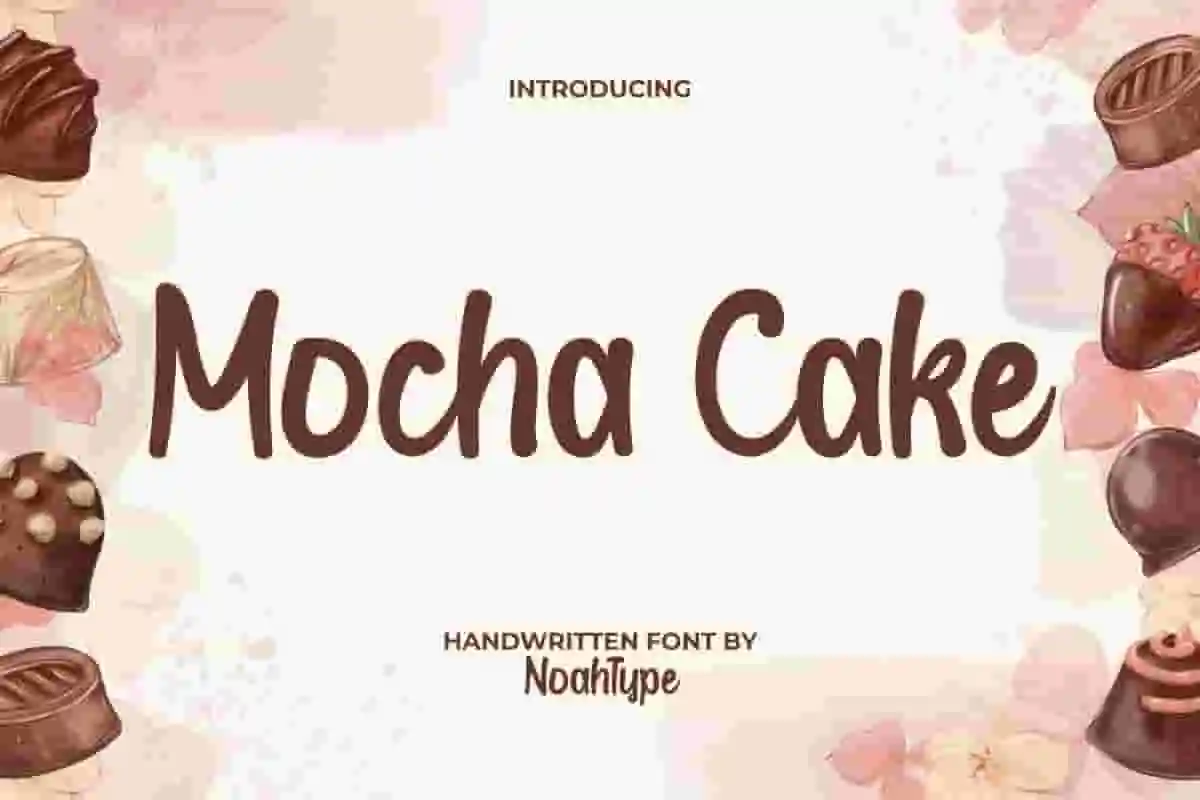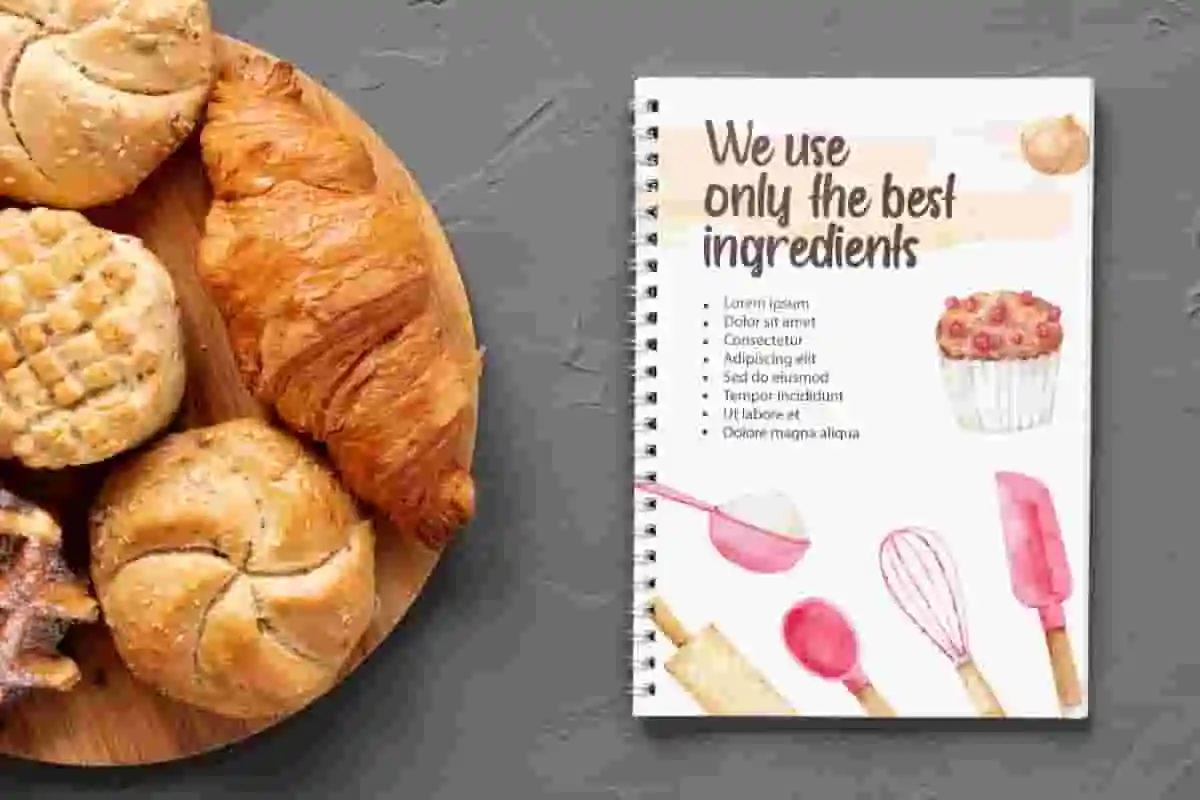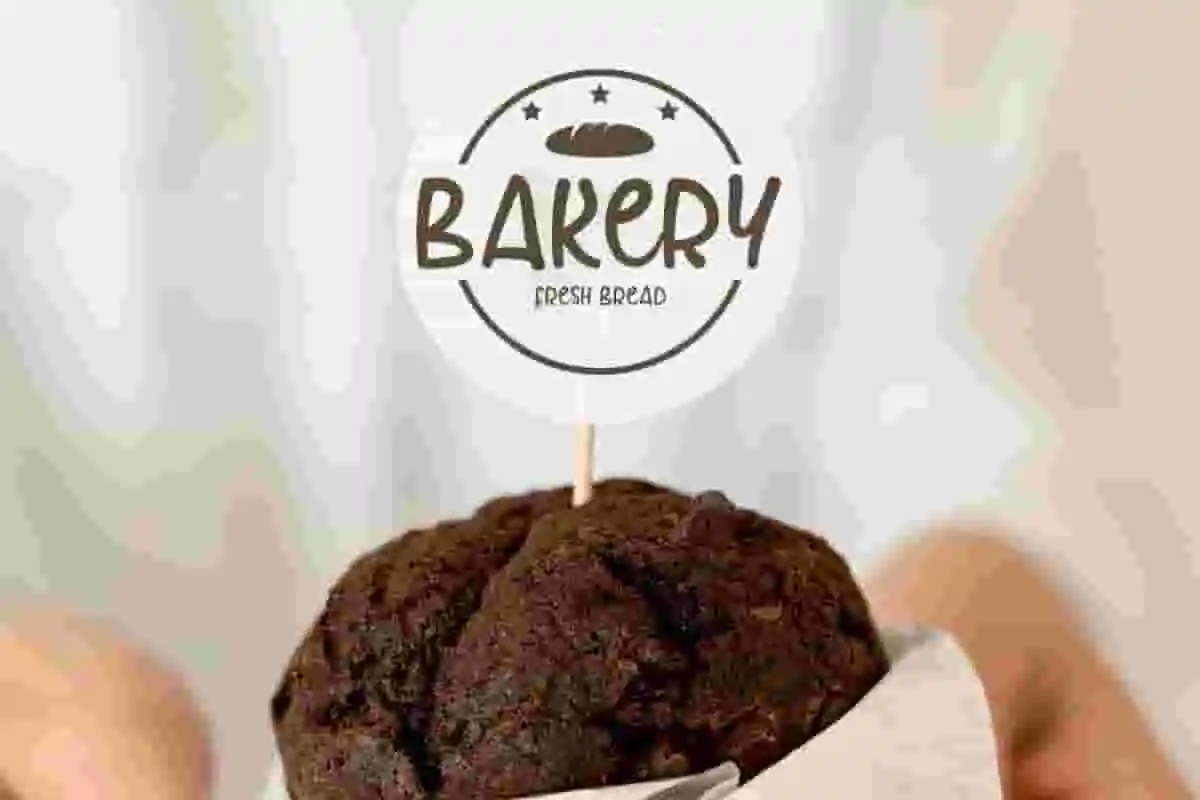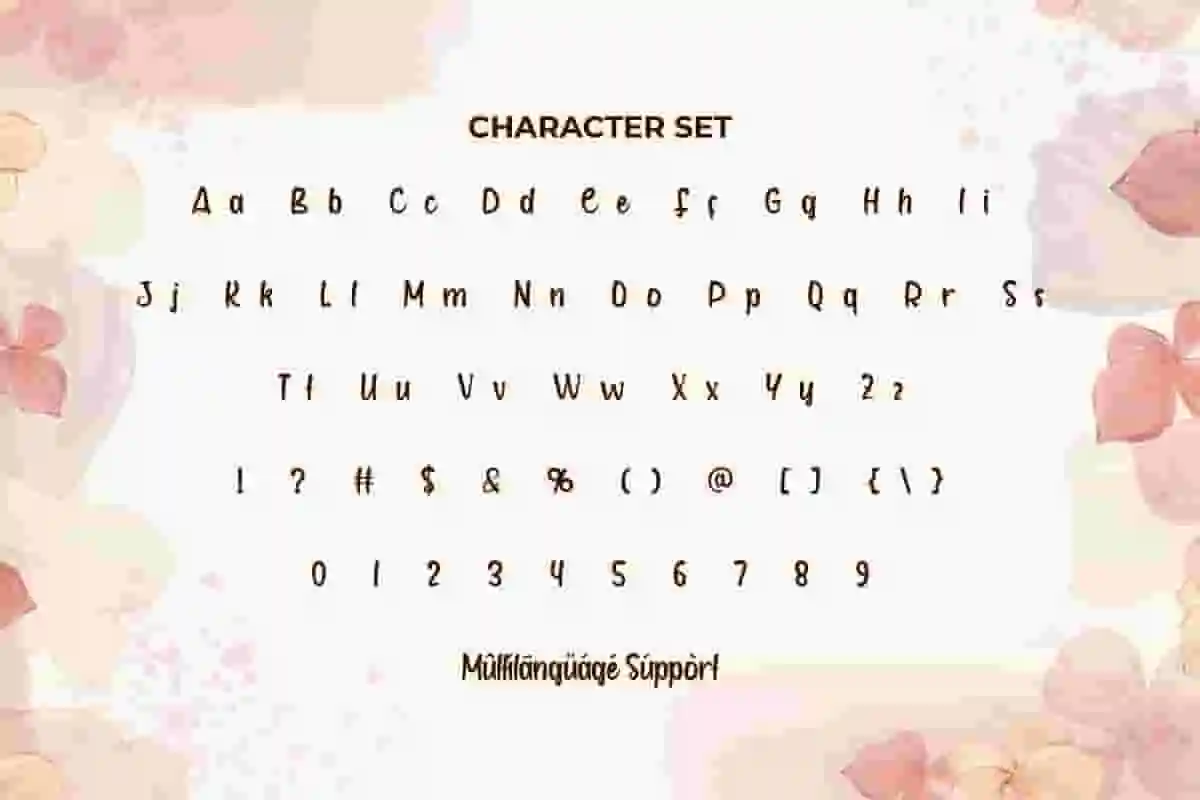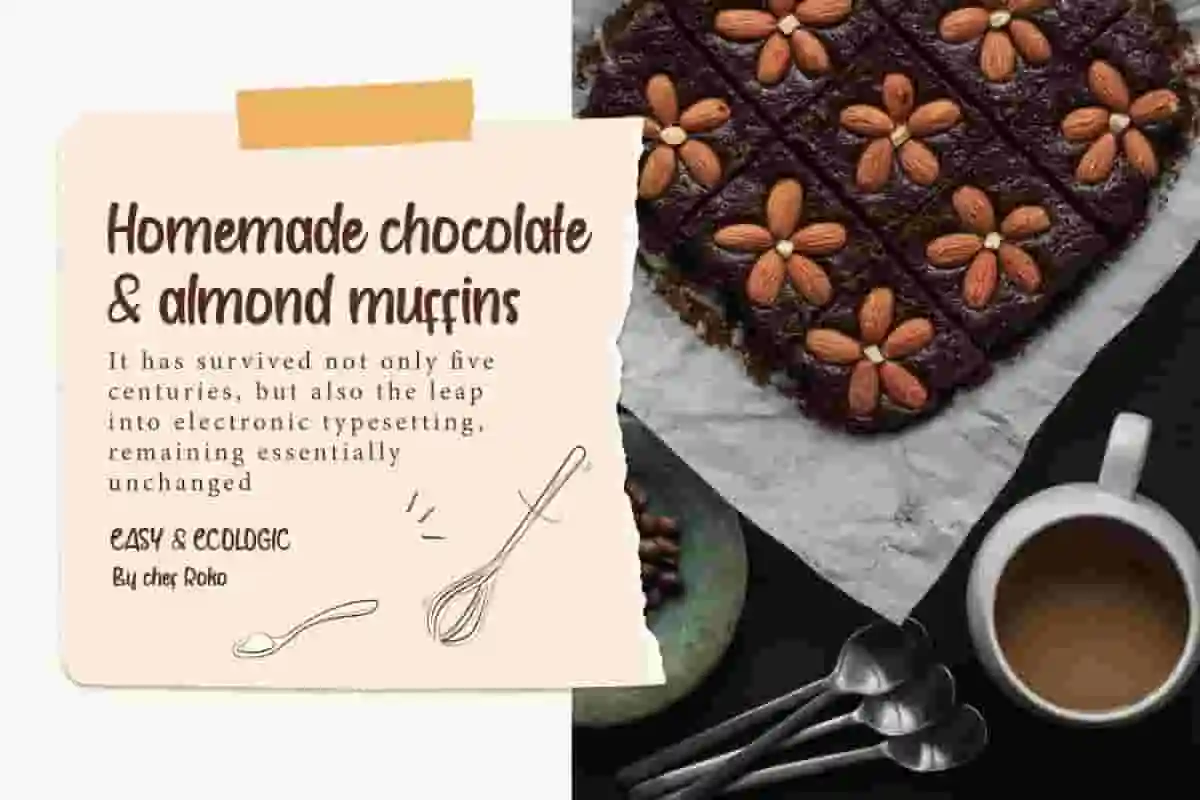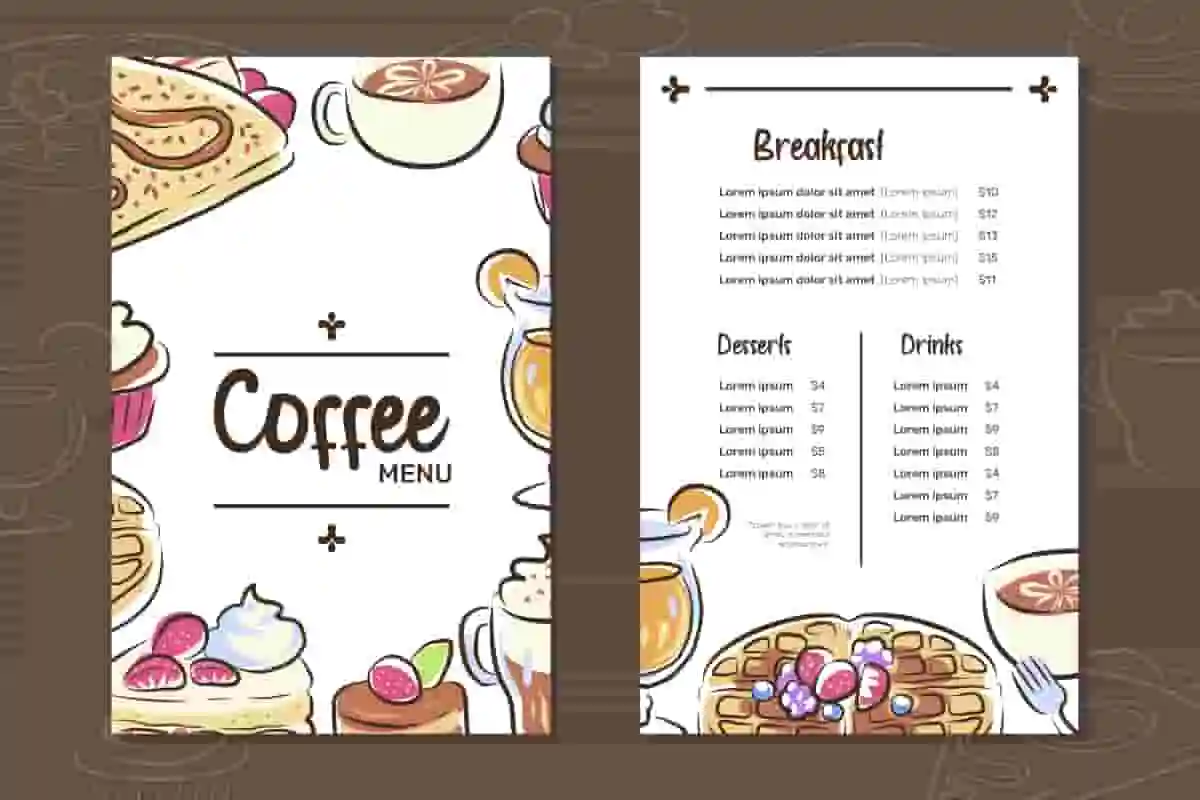
Mocha Cake Font is a cute delicious foodist handwritten font inspired from food trucks and family restaurants. The thickness of the lines in this font is perfect for you to make designs like diary writing using neat and sweet handwriting. It will be suitable for any industries, such as advertisement, bakery and pastry, café, event or festival, florist, printing, publishing, stationery, and more!
Mocha Cake Font includes full set of Uppercase and Lowercase Basic Characters, Numerals, Punctuation, and Symbol. Get inspired and use this charming font in your various designs, such as brand image, brochure, business card, custom design, gift box, greeting or thank you card, label, menu, poster, quote, screen printing, website, and more!